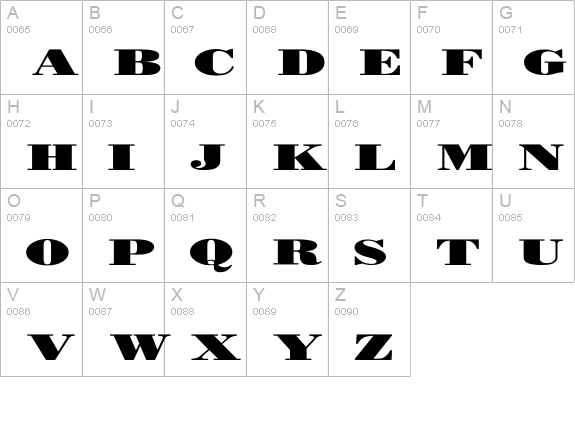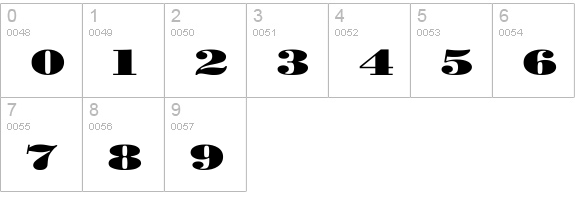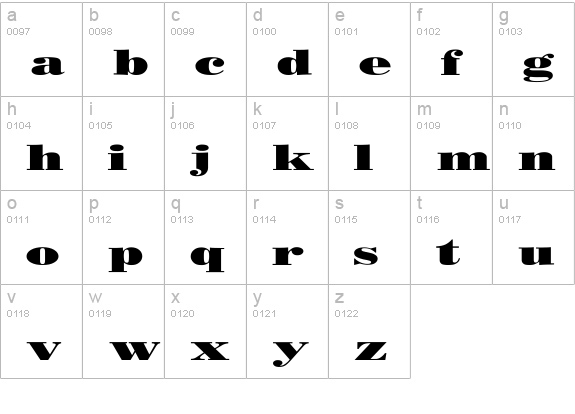
BODIDLYbold Extended Font Details
BODIDLYbold Extended is a distinctive, extended-width variant in the BODIDLYbold typeface family \xE2\x80\x94 well suited to design and typography projects.
BODIDLYbold Extended font is a stunning display typeface that exudes boldness and confidence. With its elongated letterforms and strong, impactful appearance, this font is perfect for making a statement in your designs. Whether you're creating posters, headlines, or branding materials, BODIDLYbold Extended will ensure that your message stands out. What's even better is that this font is available for free download at FontsMarket.com. Yes, you read that right - you can get your hands on this impressive typeface without spending a dime. So why wait? Elevate your designs with BODIDLYbold Extended and make a lasting impression with its striking visual presence.